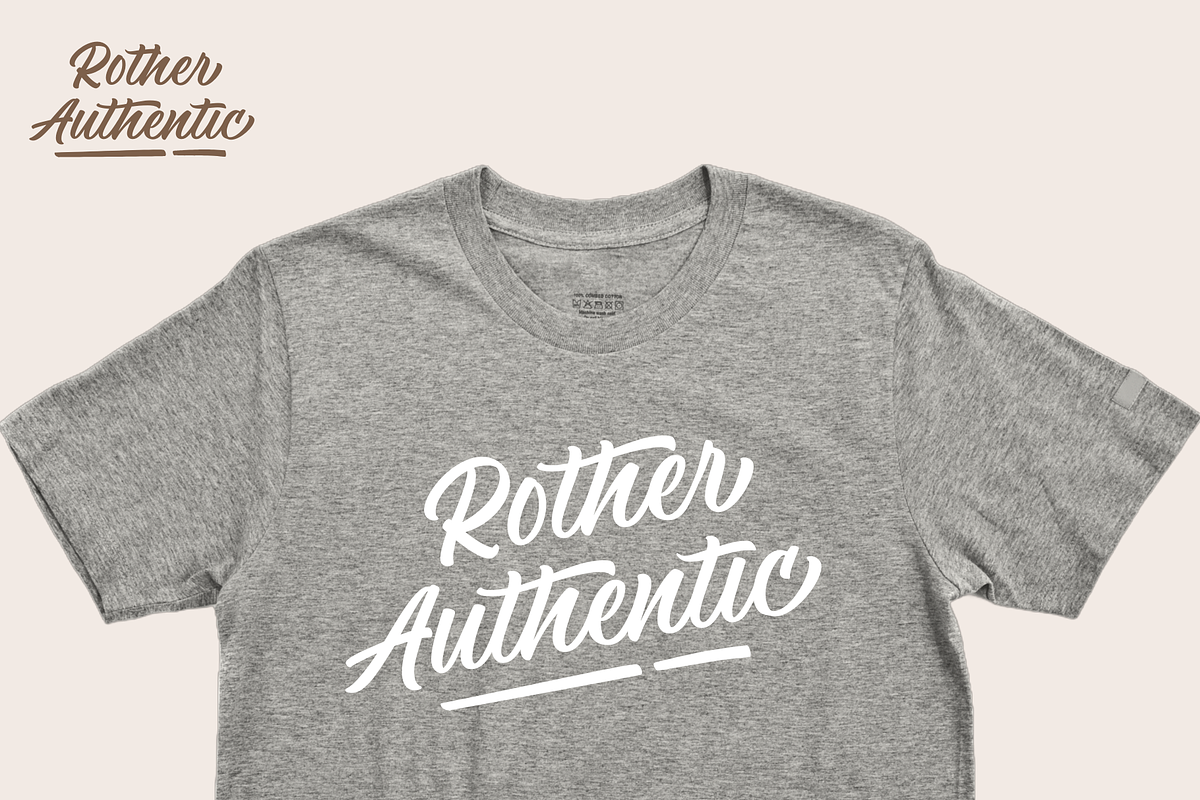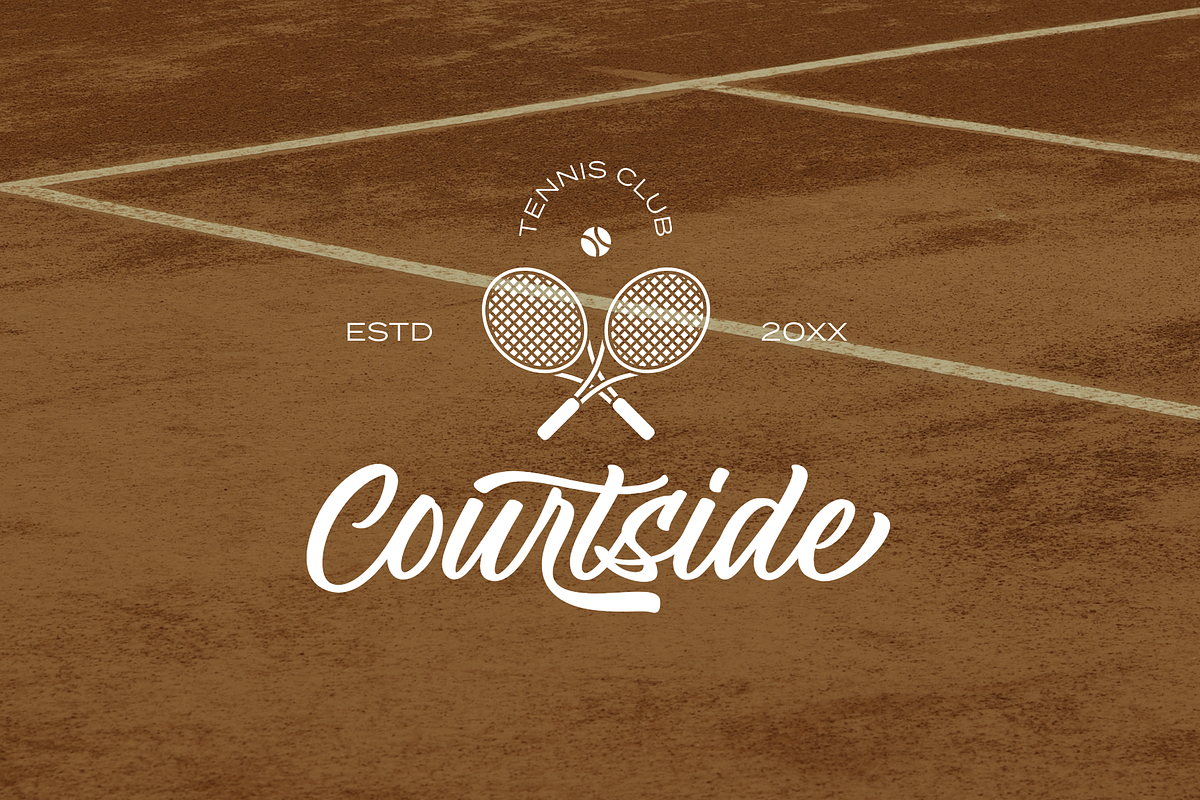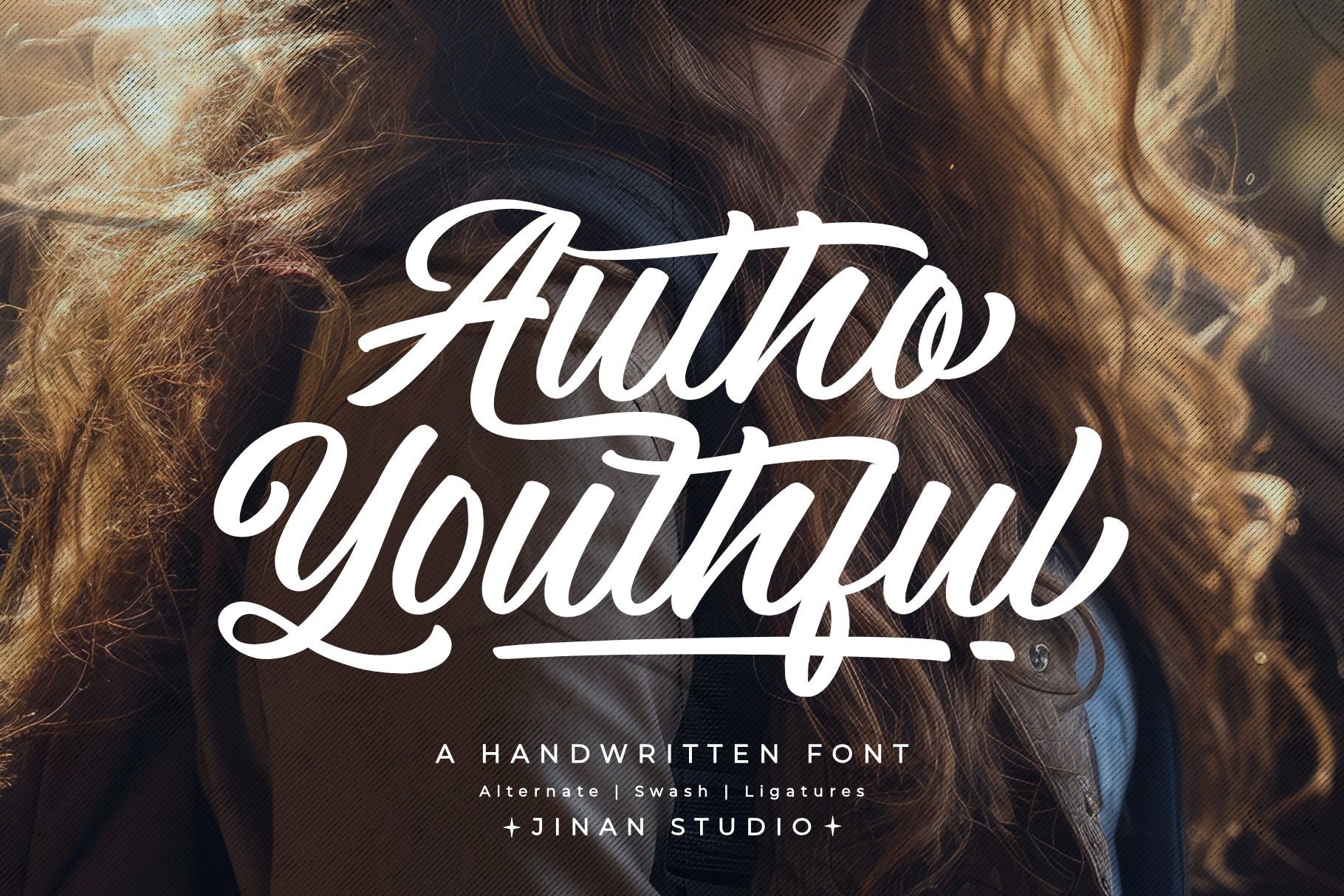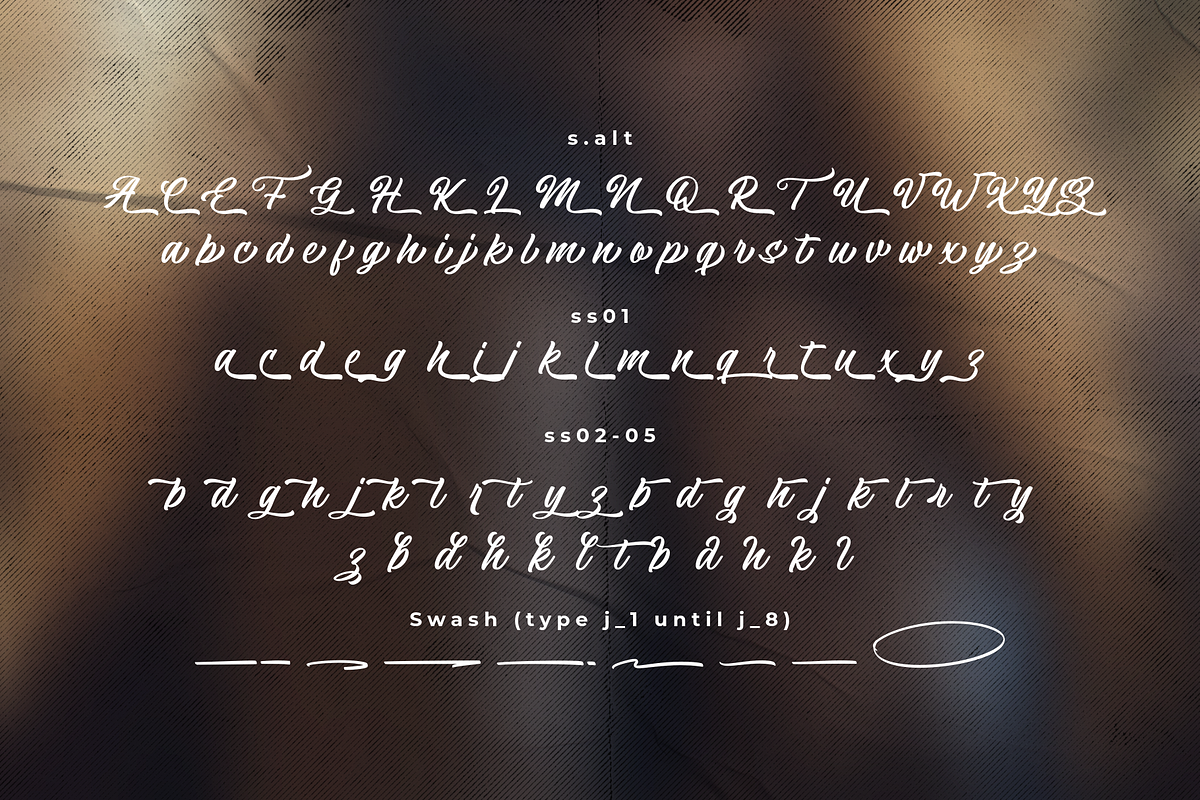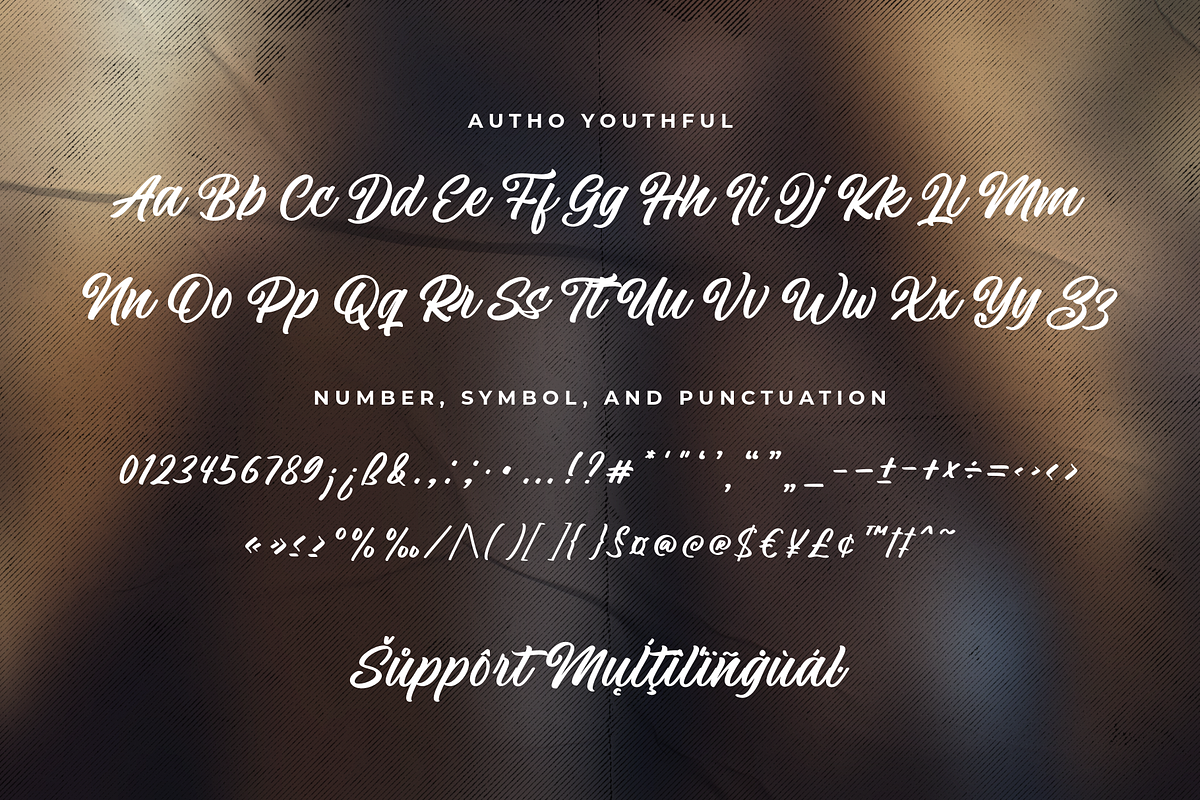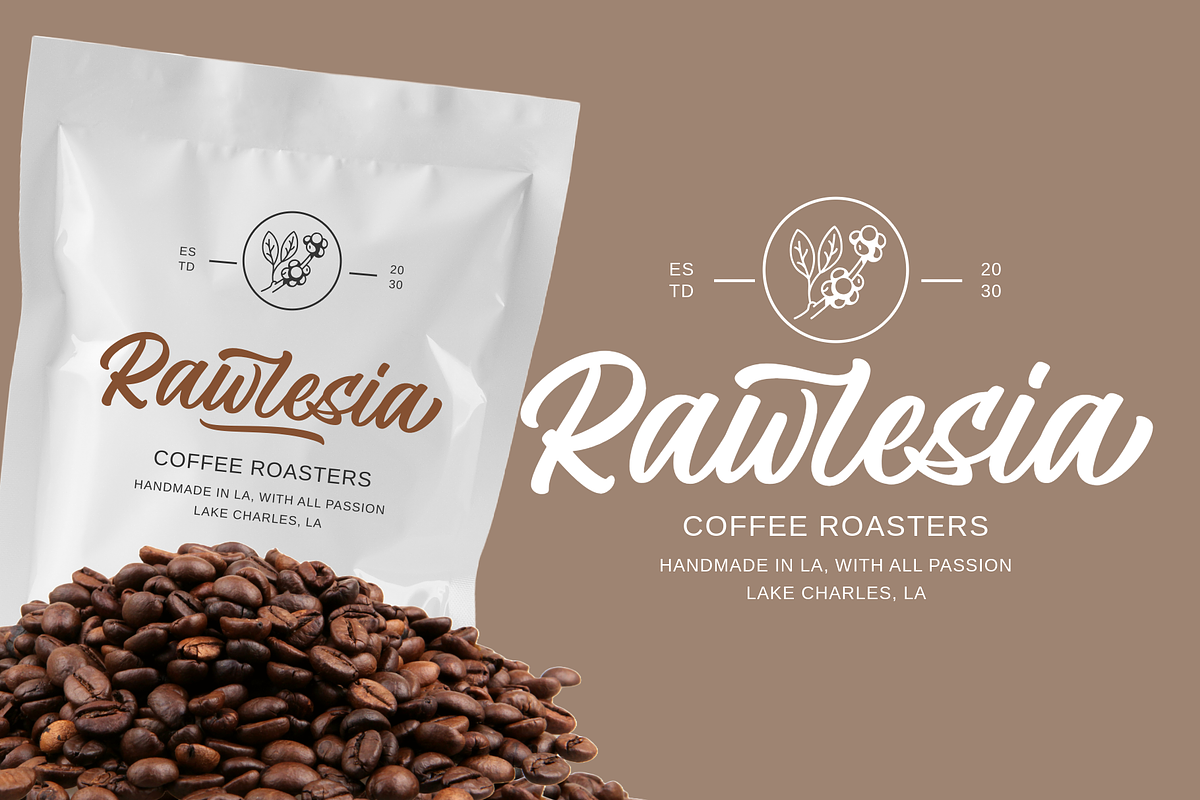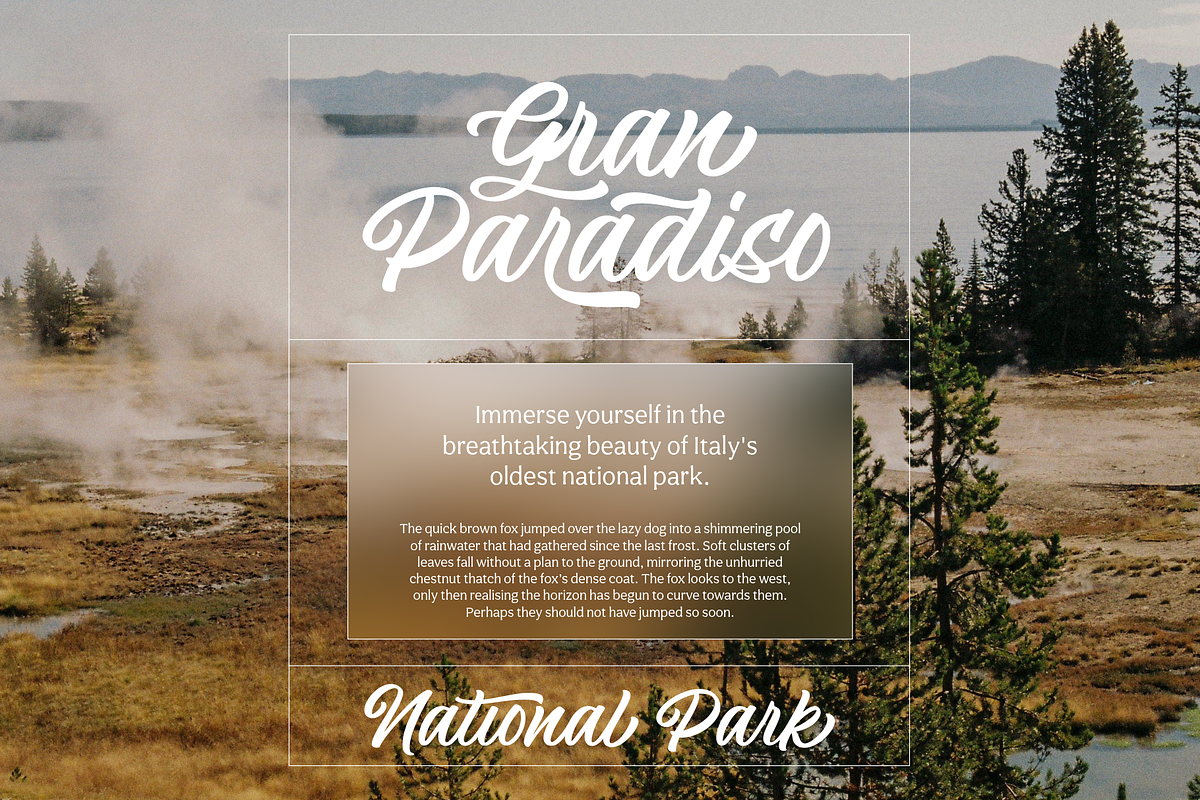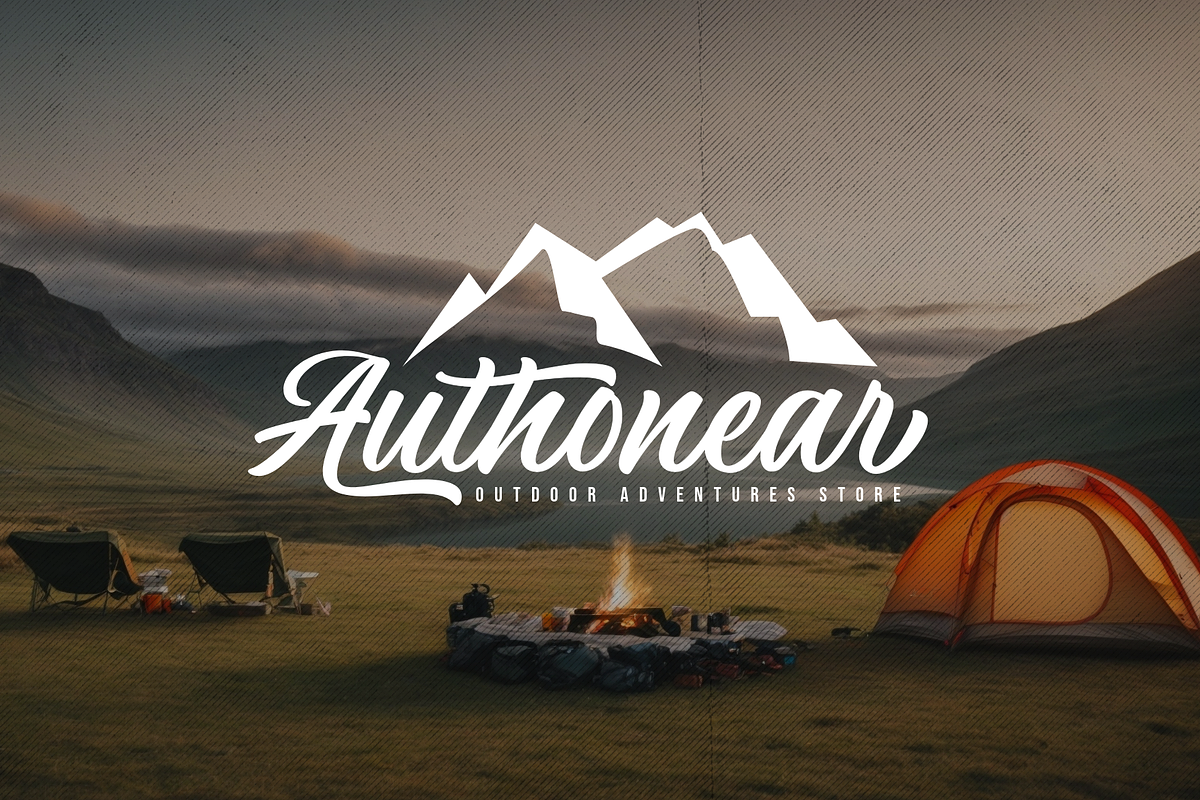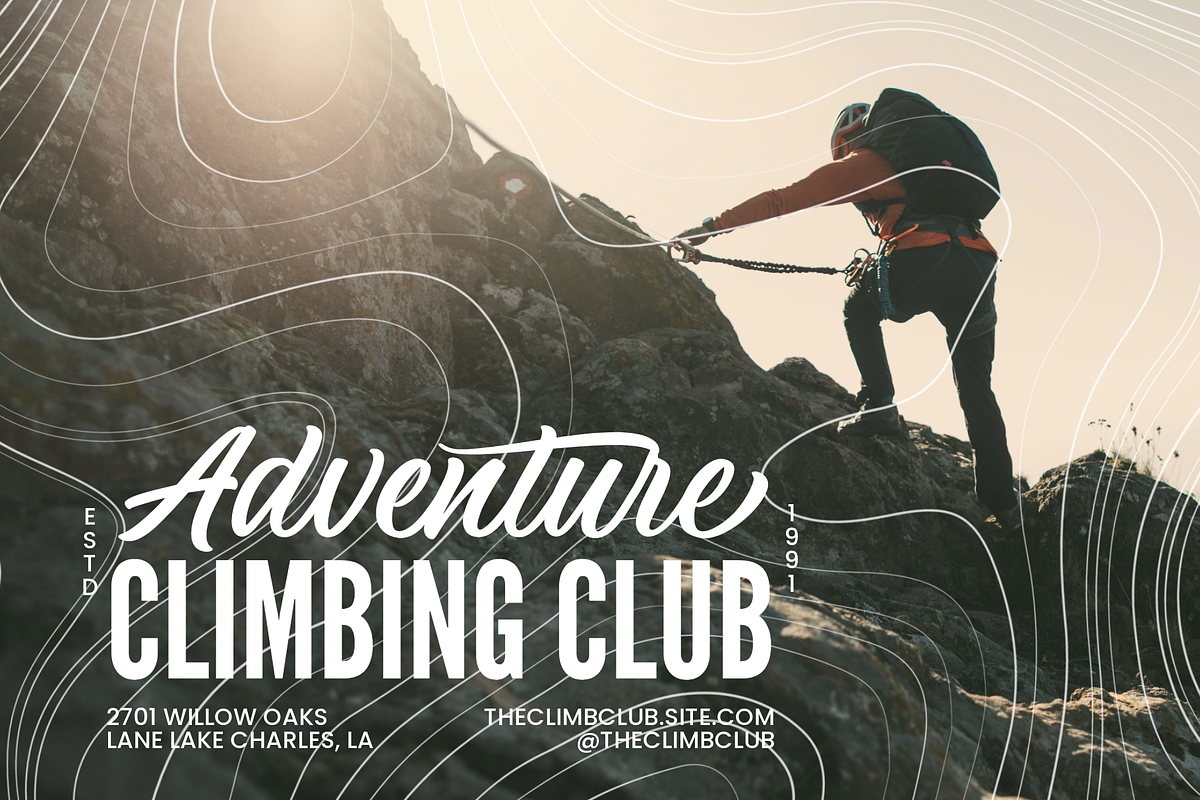
Autho Youthful - Handwritten Font
Discover the masterstroke of design in Autho Youthful, the handwritten font with timeless charm. The elegance of this font drips from each alternate, swash, and ligature, infusing your designs with a personal touch. It beautifully elevates logos, invitation cards, and social media graphics, adorning them with a dash of sophistication. Bursting with character and style, Autho Youthful is a perfect choice for your next design project.
- A set of uppercase and lowercase glyphs
- Number, symbol, and punctuation
- Alternates, ligatures, and swashes
Type j_1 until j_8 to features swash, ligatures will automatically replace the standard letter pairs whenever available, when using any OpenType capable software.